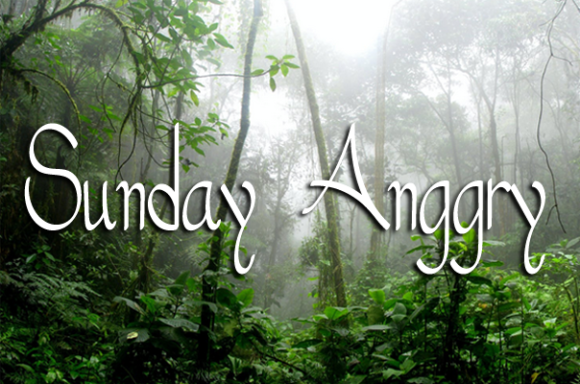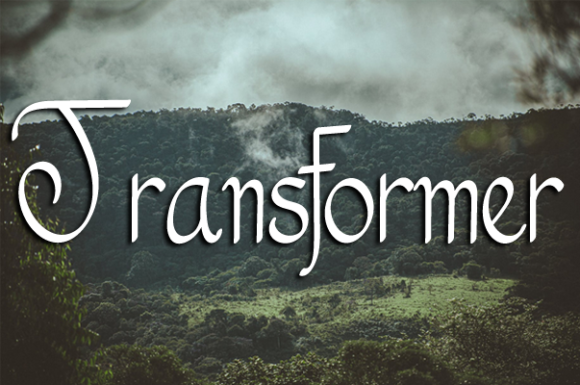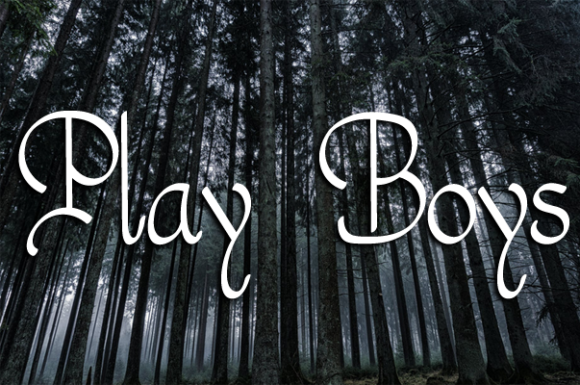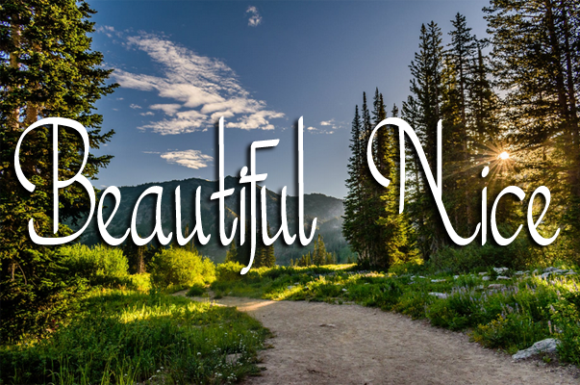
Sunday Anggry Font
About Sunday Anggry Font
Sunday Anggry is a trendy and chic handwritten font. This versatile script font has a wide spectrum of applications ranging from greeting cards to headlines and is guaranteed to add a romantic feel to your next project.